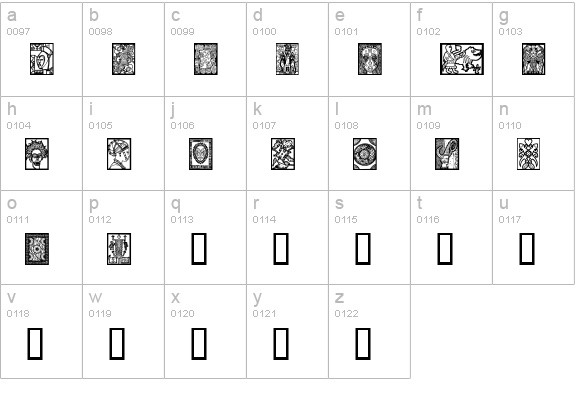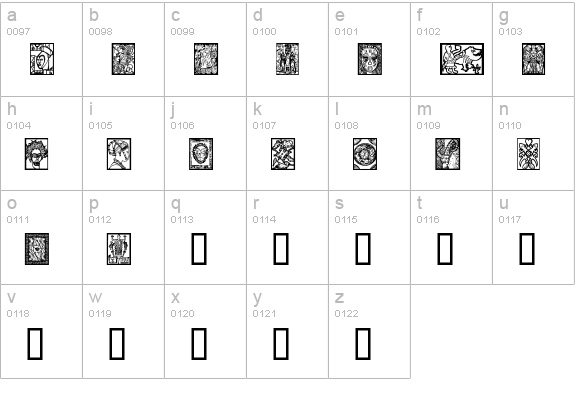
AfricanDesign Font Details
AfricanDesign font is a unique and captivating typeface inspired by the vibrant culture and artistry of Africa. This font beautifully captures the essence of African design elements, with intricate patterns and bold shapes that make it truly stand out. Whether you're looking to add a touch of exotic flair to your designs or simply want to explore a new aesthetic, AfricanDesign font is sure to make a statement. Best of all, AfricanDesign font is available for free download at FontsMarket.com. This means you can easily access this stunning font and incorporate it into your projects without any cost. Don't miss out on the opportunity to enhance your designs with this striking typeface that celebrates the rich heritage of Africa. Download AfricanDesign font today and let your creativity soar!